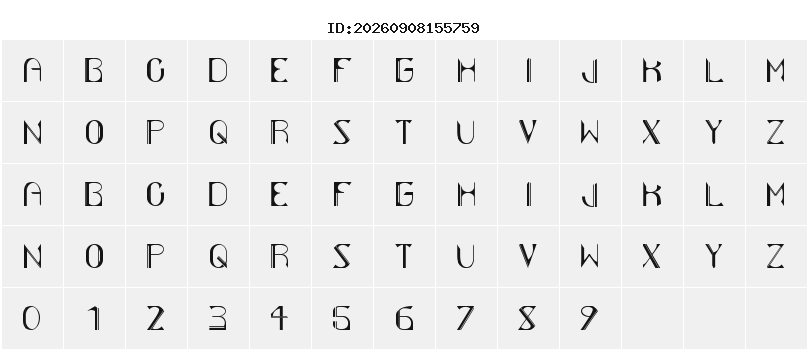
vitality Preview
• Font Name: vitality
• Full Font Name: vitality
About vitality.ttf
vitality.ttf is a modern, elegant sans-serif font designed for ultimate readability and visual harmony. Perfect for branding, headlines, web design, and print materials.